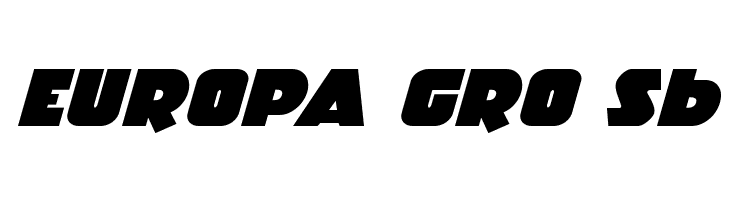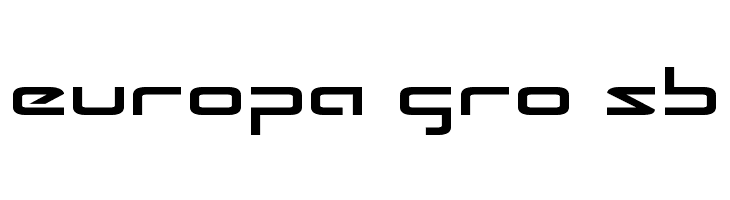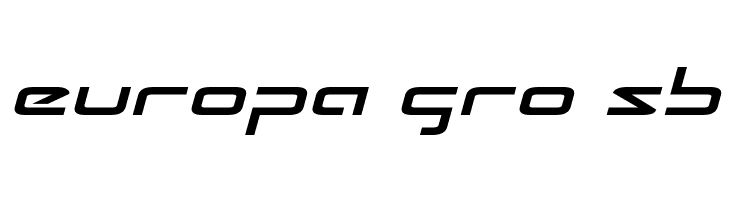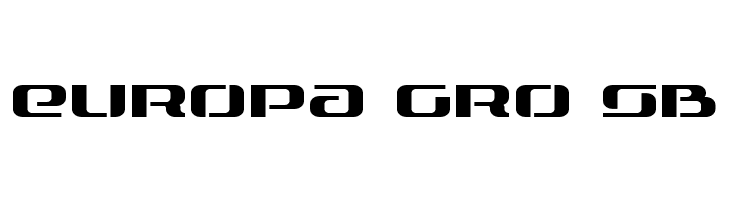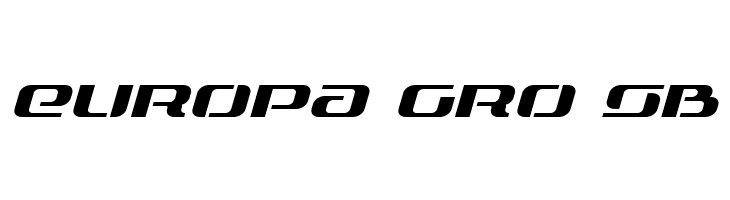
A bold, expanded, and italicized font with a futuristic, geometric style.
A bold, italic, and expanded font with a dynamic, blocky style.
A futuristic, geometric font with expanded letterforms and a modern aesthetic.
A futuristic, expanded italic font with a sleek and dynamic style.
A bold, expanded, and futuristic font with geometric shapes and sharp edges.
A bold, expanded, and italic futuristic font with a sleek, modern design.
A bold, expanded, and italicized font with a modern, dynamic style.
A bold, expanded font with blocky, geometric shapes for a strong visual impact.
A bold, expanded italic font with a futuristic and dynamic style.
A bold, expanded, and italicized font with a futuristic and dynamic style.